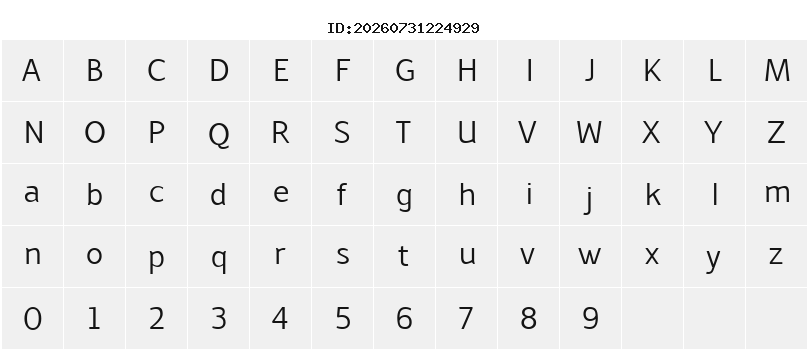
Latinaires Preview
• Font Name: Latinaires
• Full Font Name: Latinaires
About Latinaires.ttf
Latinaires.ttf is a modern, elegant sans-serif font designed for ultimate readability and visual harmony. Perfect for branding, headlines, web design, and print materials.